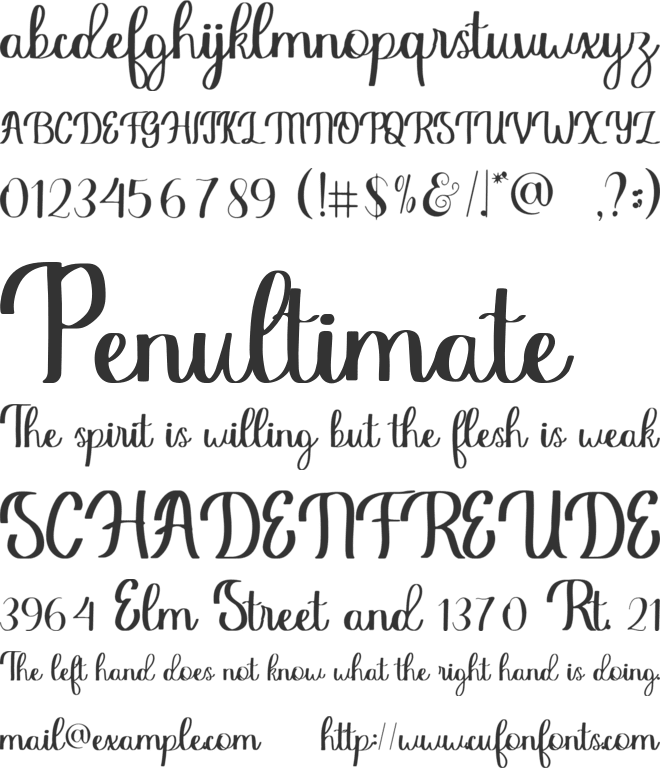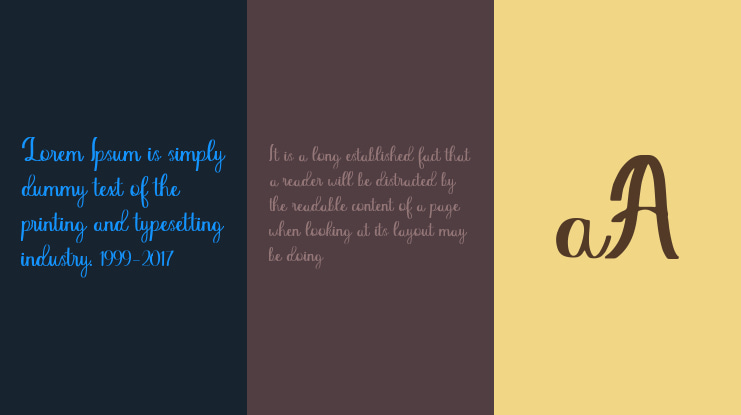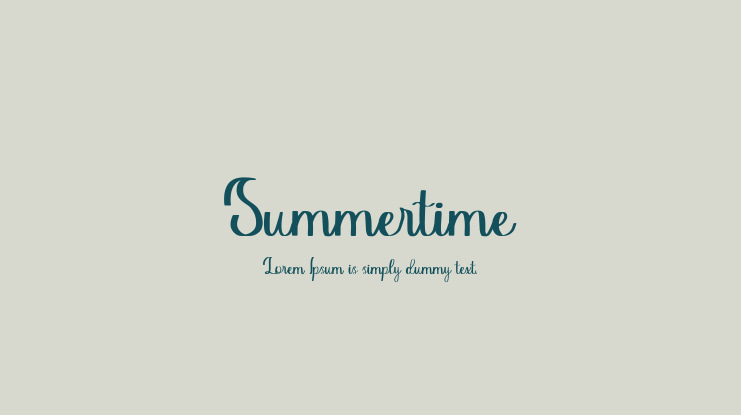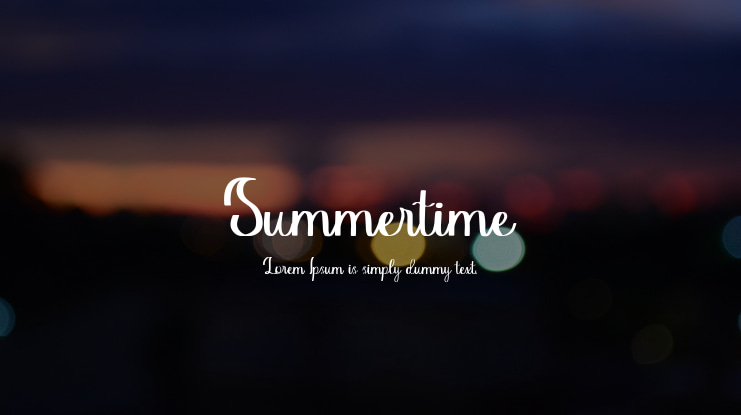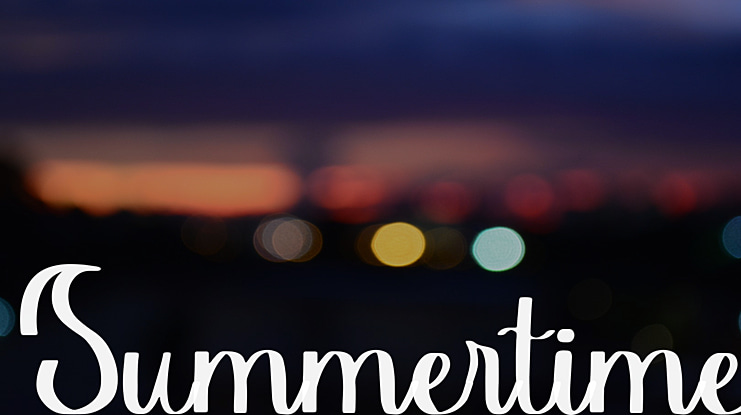
Summertime Font
Summertime is a lovely handwritten font with a charming feel to it, which will breathe life into all of your projects. It looks great on invitations, brochure designs, website content, and more.